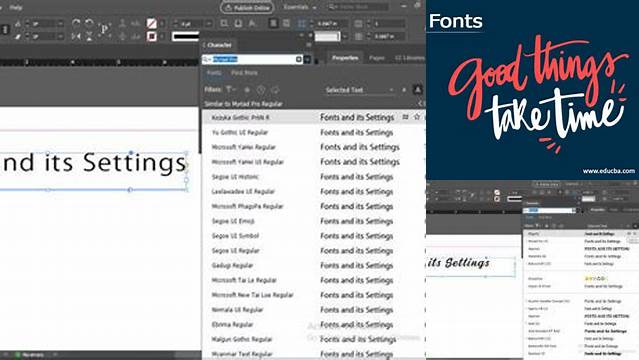
InDesign Fonts: Architectural Design Guide
Hey guys, let's dive into the awesome world of architecture fonts in InDesign! Choosing the right fonts can seriously make or break your designs, especially when you're dealing with the precise and detail-oriented nature of architectural projects. This guide will explore everything from selecting the perfect typography for blueprints and presentations to understanding the nuances of font licensing and usage. I'll walk you through the different types of fonts that work best, how to integrate them seamlessly into your InDesign workflow, and give you some killer tips to elevate your architectural designs. Get ready to transform your InDesign projects from good to absolutely stunning with the power of typography! Let's get started and make your designs pop!
1. Understanding Architectural Typography
Alright, first things first, let's chat about understanding architectural typography. This is more than just picking fonts; it's about creating a visual language that speaks to the aesthetics, functionality, and purpose of your architectural projects. Think about it: the font you choose for a modern skyscraper proposal is going to be vastly different from the one you select for a historic building restoration plan, right? It all comes down to the message you want to convey and the audience you're trying to reach. The fonts you pick should complement your design.
When you're dealing with architecture fonts in InDesign, you're essentially using the right typefaces that match the style of your project. For instance, a sleek, sans-serif font like Helvetica or Arial might be the perfect fit for a contemporary design, conveying a sense of modernity and simplicity. On the other hand, a classic serif font like Times New Roman or Garamond could lend a touch of elegance and tradition to a historical project. It's like choosing the right clothes for the occasion! But remember, It's not just about aesthetics. You also need to consider factors like readability, especially in blueprints and technical drawings where clarity is key. This helps with readability and the flow of information. The same font in multiple sizes and weights can be used to highlight details, emphasize crucial parts, and make your design easy to read. Using the right fonts is a must for good design.
1.1 The Importance of Readability
Guys, let's get real: readability is the name of the game. Especially in architectural designs. Imagine trying to decipher tiny, overly stylized fonts on a blueprint – total nightmare, right? That's why choosing architecture fonts in InDesign with excellent readability is non-negotiable. Architects, designers, and clients need to quickly and easily grasp the information presented. This means avoiding fonts that are too ornate, condensed, or have unusual letterforms. You need to choose fonts that are designed for clarity. Always keep in mind the context of your design when choosing a font. This is especially important for blueprints and technical drawings, where every detail matters. The font you choose affects how easily your audience can read your content. The goal is to make your designs both beautiful and functional, with readability at the forefront. By prioritizing readability in your architectural typography, you'll ensure that your designs are effective and communicate your ideas clearly. By the way, there are plenty of resources to help with this.
1.2 Matching Fonts to Architectural Styles
Choosing the right architecture fonts in InDesign is essential, and this means matching your fonts to the architectural style of your project. If you are designing a modern, minimalist building, consider using clean, sans-serif fonts like Helvetica, Arial, or Futura. These fonts reflect simplicity and the use of space. For traditional designs, you might go with classic serif fonts, like Times New Roman, Garamond, or Baskerville. These have the look of authority and history. If your project has a retro vibe, explore vintage-inspired fonts that evoke a sense of nostalgia. This way, your design is consistent with the style. The right font can really highlight the style. For instance, a sleek, sans-serif font can highlight a modern design, whereas a serif font can add an impression of tradition. Always consider the target audience and the overall message you want to convey.
2. Best Font Types for Architectural Projects
Alright, now that we're clued in on the basics, let's explore the different font types you'll want to consider for your architecture fonts in InDesign endeavors. This is where you'll find the perfect font.
2.1 Sans-Serif Fonts for Modern Designs
If you're diving into the world of modern architectural designs, sans-serif fonts are your go-to. They bring a clean, contemporary aesthetic to your projects, perfect for conveying a sense of simplicity and functionality. Think of fonts like Helvetica, Arial, and Futura – these are the workhorses of modern design. Their simple lines and lack of serifs make them incredibly readable, which is super important for blueprints, presentations, and any document where clarity is key. The readability is important. Sans-serif fonts fit perfectly with the minimalist style that is often used in modern architecture. They help the design appear clean. Using a sans-serif font helps communicate a sense of modernity and innovation. The goal is to make your design clean and easy to understand. They fit well in digital documents. The best part is that they are versatile enough to be used in a variety of different ways.
2.2 Serif Fonts for Traditional and Classic Projects
For those of you working on more classic or traditional architectural projects, serif fonts are a must-have. These fonts have small strokes, called serifs, at the ends of their letters, giving them a more elegant and timeless feel. Think of Times New Roman, Garamond, and Baskerville. These fonts add a touch of sophistication and are great for conveying a sense of history, authority, and tradition. They are ideal for projects like historical building renovations, classic home designs, or anything that needs to evoke a sense of heritage. In the world of architecture fonts in InDesign, serif fonts can be used to create a strong first impression. These fonts help in making your designs appear credible and authentic. The choice of a serif font can highlight the timeless beauty and historical significance of your architectural designs.
2.3 Display Fonts for Headlines and Emphasis
Let's talk about display fonts! These are your secret weapons for headlines, titles, and any text that needs to grab attention. Display fonts are designed to be eye-catching and often have unique styles that set them apart. In the context of architecture fonts in InDesign, display fonts can be used strategically to highlight key information, add visual interest, and convey a specific mood. Be careful: display fonts are not always ideal for body text. Their primary purpose is to make your headings stand out. Some popular display fonts you could use are fonts with bold and innovative designs. With this in mind, it's easy to make your architectural presentations even more appealing.
3. Font Combinations and Pairings
Let's get into the art of combining fonts. When it comes to architecture fonts in InDesign, creating a solid font combination is essential. You want to pick fonts that work well together and complement your design. It's all about creating a good flow of information and a visual consistency that enhances the overall aesthetic of your project.
3.1 Pairing Sans-Serif and Serif Fonts
One of the most popular and effective combinations involves pairing a sans-serif font with a serif font. This duo offers a good balance between modern and classic styles, helping create a visual hierarchy that's both pleasing to the eye and easy to read. You can use a sans-serif font for headlines and titles, while a serif font is ideal for the body text. This makes for a clean, modern look. Also, this combination is great for architectural presentations. Think of pairing Helvetica (sans-serif) for headings with Times New Roman (serif) for the main text. This allows the user to easily grasp the information. The combination adds a touch of sophistication. However, remember to avoid pairing fonts that are too similar, or too different. Choose fonts that have a similar style. This way, you'll create a harmonious balance between clarity and design.
3.2 Mixing Different Weights and Styles of the Same Font
Another cool technique is to play around with different weights and styles of the same font. This gives you a lot of flexibility and allows you to create a cohesive look throughout your design. Using different weights of the same font can highlight headings, subheadings, and body text. Also, this allows you to add emphasis and create a visual hierarchy without introducing multiple fonts. For example, using a bold weight for your titles, a regular weight for your body text, and an italic style for any supporting text can add a touch of elegance. This can work well with the architecture fonts in InDesign. This will help you achieve a professional and unified design. The approach is versatile. The key is to find a balance.
3.3 Avoiding Font Clashes
Avoiding font clashes is super important. Think of this as the secret to making your font combos work well. You do not want fonts that are too different in style, as they can create a chaotic and confusing look. In the world of architecture fonts in InDesign, a font clash is the difference between a professional presentation and a total mess. The best way to avoid this is to choose fonts that complement each other. To avoid clashing, stay away from fonts that are too similar in style, or fonts that compete for attention. Select fonts from different categories. Remember, simplicity is the key. Always test your font combinations. Use a variety of text samples. If you take the time to pick the right fonts, your design will be amazing!
4. Integrating Fonts into Your InDesign Workflow
Now that you know about the importance of architecture fonts in InDesign, let's talk about how to make them work seamlessly in your workflow. From installing the fonts to using them effectively in your documents, I'll give you the lowdown on getting the most out of your font choices.
4.1 Installing Fonts in InDesign
Installing fonts in InDesign is a breeze! The first step is to download your preferred fonts. Then, you will want to install them. There are different ways to do this. Make sure you are using the right fonts with architecture fonts in InDesign. Once your fonts are installed, you will be able to use them across all of your InDesign projects. Make sure you place your fonts in the font folder. Remember that you will want to restart InDesign to ensure that the fonts are visible. This allows you to have access to a library of fonts. Once the font is installed, you will be able to use it for a variety of projects. Now, you're ready to start creating your designs!
4.2 Using Character and Paragraph Styles
When it comes to architecture fonts in InDesign, character and paragraph styles are your best friends. They're the tools that make it easy to maintain consistency and save you a ton of time. Character styles let you define the formatting for specific characters, like a bold heading or a specific color. And paragraph styles allow you to save and apply formatting for entire paragraphs. The tools ensure that your text formatting is consistent. This means that you can quickly make changes across your entire document. Character and paragraph styles will help you create a professional and polished design. Use these features when you are working with architecture fonts in InDesign. The next time you work with these features, the text will automatically update. Use these tools to create a professional design. The benefits of using these styles are really amazing!
4.3 Managing Fonts in Large Projects
When you're working on large architectural projects, managing your fonts can be a bit challenging. This is why it's important to stay organized when working with architecture fonts in InDesign. As your projects grow, having a clear system in place to manage your fonts becomes essential. You can group your fonts. Create a well-organized folder structure. Use descriptive file names. Document which fonts you're using. The goal is to prevent the chaos of multiple fonts. A clean and well-managed font library makes your workflow smoother. Make sure you have a system to keep track of your fonts. Proper management is crucial for any project. The organization will keep your projects on track. Stay organized and work with architecture fonts in InDesign.
5. Font Licensing and Usage Rights
Let's talk about font licensing and usage rights. It's a must for anyone working with architecture fonts in InDesign. Understanding the terms of font licenses is essential to avoid any legal issues. Here's the lowdown.
5.1 Types of Font Licenses
There are a few types of font licenses you'll come across. First, there's the personal use license. This is for personal projects only. Then, there are commercial licenses. This is what you need if you're using the fonts for any professional work. You will want to know about the desktop license. This is what you will likely need for use in InDesign. Some licenses also cover web fonts. Make sure you understand the details of the font license. Understanding each type of license is key to ensuring that you use fonts correctly. Choose the right license based on how you plan to use the font. The options depend on your specific needs.
5.2 Avoiding Copyright Infringement
Avoiding copyright infringement is a must. It's crucial when you're using architecture fonts in InDesign. Always be sure to read the font license. You can use the font legally. The penalties can be severe. When you are unsure, you may want to contact the font designer. When in doubt, you may want to buy a commercial license. Make sure you obtain the required licenses. This means that you are using the fonts in a legal and responsible manner. Make sure you do your research. Protect yourself from potential legal issues. By the way, the best approach is to use open-source fonts. Remember to be mindful of copyright laws.
5.3 Using Fonts in Commercial Projects
Using fonts in commercial projects requires a different approach. Always double-check the license agreement. Make sure the license allows for commercial use. Sometimes, you may need an extended license. When you are working on commercial projects with architecture fonts in InDesign, make sure you have the right licenses. If you are working for a client, make sure your client knows about the font license. This is key if you are working on architectural designs. Always prioritize legal compliance. With these tips, you can avoid potential issues.
6. Font Resources and Where to Find Them
Okay, let's talk about where to find the best resources for architecture fonts in InDesign. There are tons of places to find amazing fonts that are perfect for your architectural projects. I'll give you a few of my go-to spots.
6.1 Free Font Websites
Let's start with the freebies! There are loads of awesome free font websites out there. You can find a huge selection of fonts. Be aware of the licensing restrictions. Some popular sites include Google Fonts, Font Squirrel, and DaFont. Each site offers a ton of options. Most of these offer licenses that allow for both personal and commercial use. Always double-check the license before downloading and using a font. You will want to use these sites when you are working with architecture fonts in InDesign. These are great for exploring new fonts. The best part is that these sites are all free and safe to use.
6.2 Premium Font Websites
If you're looking for a wider selection of fonts, you may want to check out premium font websites. Websites like MyFonts, Adobe Fonts, and Creative Market offer a wide variety of high-quality fonts. These sites often feature a wide range of options. You'll find unique and exclusive fonts. These options are great when you are working with architecture fonts in InDesign. Premium fonts usually come with more extensive licensing options. You will get a more professional look. This is especially useful for commercial projects. This way, you are able to find the perfect fonts for your needs. With premium fonts, the possibilities are endless.
6.3 Font Libraries and Subscription Services
Font libraries and subscription services are gaining popularity. Services like Adobe Fonts (included with Adobe Creative Cloud) and Envato Elements offer unlimited access to a wide range of fonts. When you are looking for architecture fonts in InDesign, these are a great way to explore a vast collection of fonts. This is especially useful if you are working on multiple projects. The best part is that you are able to try out multiple fonts. Subscription services are a cost-effective solution. You'll always have access to the latest and greatest fonts. You'll be able to experiment with different styles. Subscription services are a good choice if you are looking for flexibility and a great value.
7. Tips for Choosing the Right Fonts
Choosing the right architecture fonts in InDesign is a process that involves a little research and some creative thinking. Here are a few tips.
7.1 Considering the Project's Purpose and Audience
When you're picking architecture fonts in InDesign, always consider the purpose of your project and who you're trying to reach. Are you creating a blueprint? A presentation for a client? A promotional brochure? This will guide your decisions. The font choice must align with the project. Also, think about your audience. Understanding your audience's preferences will help you make a good choice. Make sure your choice is aligned with your project's audience. The goal is to communicate effectively with your target audience. To choose the right font, it's important to understand your target audience. Keep your audience in mind.
7.2 Prioritizing Readability and Legibility
Guys, I can't stress this enough: readability and legibility are non-negotiable. Especially in architectural design. Make sure your chosen font is easy to read, regardless of its style. Make sure the font is legible. Test your font. Look at it in various sizes and weights. If the information is hard to read, then it's the wrong choice. Always choose a font that's clear. Prioritize both readability and legibility. Also, consider how the font will appear in different formats. This is essential if you want your architectural designs to be clear and effective. By the way, there are a lot of resources available.
7.3 Testing Fonts in Your Design Mockups
Before you commit to a font, you gotta test it out! Creating design mockups is a must when you are working with architecture fonts in InDesign. Seeing how a font looks in context is the best way to determine if it's the right fit for your project. You can create mockups to show your ideas. This way, you can avoid any surprises. Always check your font in different sizes. You can evaluate how the font appears. If you are unsure, ask for feedback. Testing your font helps you to refine your choices. Creating mockups is a great way to visualize your ideas. It is essential for making good design decisions.
8. Advanced Techniques and Design Considerations
Alright, let's get a little more advanced. If you want to become an expert in architecture fonts in InDesign, you need to explore some of the more complex techniques and design considerations. This will allow you to make your design better.
8.1 Using Typography Hierarchy to Guide the Eye
Typography hierarchy is super important. Think of it as a visual roadmap that guides your audience through your design. You need to use font sizes, weights, and styles to create emphasis. This is a key aspect when you are working with architecture fonts in InDesign. The goal is to help your audience understand your design. The most important information needs to be emphasized. The use of typography hierarchy adds a sense of order. You can add contrast by varying the font size. You can use a bold font weight to make the heading stand out. The right typography can really enhance your project. Remember to create a clear hierarchy.
8.2 Kerning and Tracking Adjustments for Fine-Tuning
Let's talk about kerning and tracking. These techniques involve adjusting the spacing between letters and words to fine-tune the appearance of your text. Kerning is the process of adjusting the space between two individual letters, while tracking affects the spacing across a group of letters. This is a great way to make your projects better when you are working with architecture fonts in InDesign. If you use these adjustments, you can make your text look better. This will also improve readability. The goal is to enhance the overall aesthetic of your text. Kerning and tracking can really improve the look of your text. Mastering these techniques allows you to have greater control over the visual appearance of your text.
8.3 Using Font Variations and Weights Effectively
When you are looking for the best result with architecture fonts in InDesign, you will want to use font variations and weights. These allow you to create a more dynamic and engaging design. Font variations and weights can add visual interest. When you are picking fonts, make sure you use different weights for your headlines and body text. Varying the weight is the best way to create contrast and highlight the most important parts of your design. You can combine several weights. Using font variations and weights is great for enhancing the overall appeal of your text. The techniques will add a professional touch.
9. Case Studies: Font Choices in Architectural Projects
Let's dive into some real-world examples. The case studies are great if you are learning more about architecture fonts in InDesign. I will share some projects where the right font made a big difference.
9.1 Modern Skyscraper Design
Imagine a modern skyscraper project. The best architecture fonts in InDesign would be something sleek and contemporary. A sans-serif font like Helvetica or Futura would be an excellent choice. The goal is to convey innovation. The font should be clean and easy to read. This helps to highlight the skyscraper's modern design. These fonts complement the architectural style. The font choice adds a modern appeal. In this case study, the font choice is essential. Use fonts that highlight the modern aesthetic. It will make your project pop.
9.2 Historic Building Renovation
Let's say you're working on a historic building renovation project. In this case, the best fonts for architecture fonts in InDesign are serif fonts. You may want to use Times New Roman or Garamond. These fonts will add elegance. The goal is to honor the building's history. These fonts offer a touch of sophistication. Make sure you pick a font that is appropriate. Consider using a classic serif font. The font choice should align with the project. The right font can help preserve the building's history.
9.3 Residential Home Design Presentation
Now, imagine you are working on a residential home design presentation. You need to pick the best architecture fonts in InDesign. You could use a font that highlights comfort. The font should be easy to read and create an inviting design. You could combine a sans-serif font for headings with a serif font for the body text. It is a good option. The goal is to create a welcoming atmosphere. The combination helps create a balance. Your goal is to communicate your ideas. The font can really make your design come alive.
10. Troubleshooting Common Font Issues
Working with architecture fonts in InDesign can be a bit challenging at times. Here are some common issues.
10.1 Font Missing or Appearing Incorrectly
Font missing or appearing incorrectly can be a major headache. Sometimes your fonts might not appear correctly or at all. First, double-check your font installation. If the font is still not working, try restarting InDesign. Make sure the font is activated. If the font is still missing, then you may have to reinstall it. The goal is to ensure the fonts are correctly installed. If all of this doesn't work, then you might have a corrupted font file. The best way to troubleshoot this issue is to double-check everything. With a little bit of effort, you'll be able to fix this.
10.2 Font Conflicts and Compatibility Problems
Font conflicts and compatibility problems are common. When you have multiple fonts installed, conflicts can occur. You will need to manage your fonts to avoid this. Always make sure your fonts are compatible with InDesign. If you are having problems, try updating InDesign. Managing your fonts is the key to success. If you follow these steps, you will be able to fix any compatibility issues. Always double-check the details. These steps will ensure that you are using the correct version of InDesign.
10.3 Text Rendering and Display Issues
Sometimes, you may see text rendering and display issues. These can be a result of various factors, such as the font itself, your system settings, or even InDesign's preferences. Always double-check the font. Make sure InDesign is up to date. Adjust your display settings to improve the text rendering. This is the best way to ensure your fonts appear as intended. The goal is to make sure your text appears correctly. By addressing these issues, you can ensure a smooth and professional outcome. If you follow these steps, then you will solve this issue.
11. Best Practices and Pro Tips
Let's wrap things up with some best practices and pro tips. Following these tips will help you become an expert in architecture fonts in InDesign.
11.1 Maintaining a Consistent Font Usage Across Projects
Maintaining consistent font usage is key. When working on multiple projects, it is important to use a consistent set of fonts. This will establish a recognizable visual identity. Using a style guide is a great way to ensure consistency. This is the best way to create a unified look. A consistent font will improve your brand. This will save you time in the long run. You can also create font templates. Using a consistent font creates a professional look.
11.2 Saving and Reusing Character and Paragraph Styles
Saving and reusing character and paragraph styles is a must. It is one of the best ways to save time. Using these styles makes it easy to change your fonts. The best part is that you can apply these styles to multiple projects. Character and paragraph styles will save you a ton of time. Always consider these tips. They will really help you become an expert. By following these tips, you can streamline your workflow. The tips will help you in the long run. The more you know, the better. Also, you will be able to create a professional design.
11.3 Staying Updated with Font Trends and Innovations
Let's talk about staying updated with font trends and innovations. The world of typography is constantly evolving. Make sure you know about the new trends. Keep an eye on the latest font releases. This way, you can stay ahead of the curve. This is the best way to keep your designs fresh. The best way to stay current is to explore new designs. Always stay on top of the latest trends. These tips will help you create a great design. The more you know, the better. With a little effort, you can create the best design.